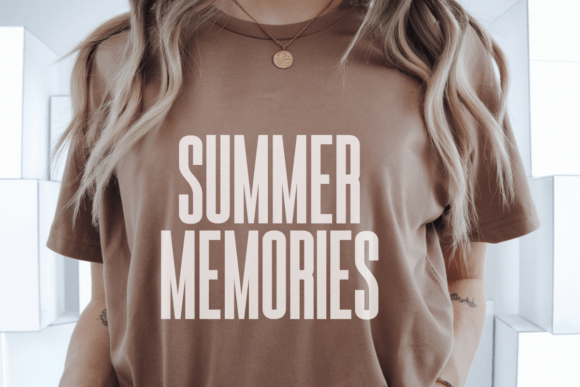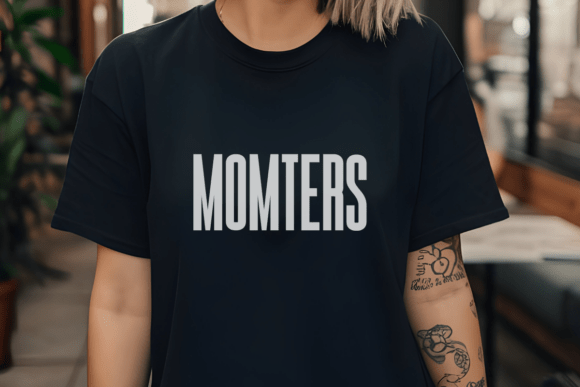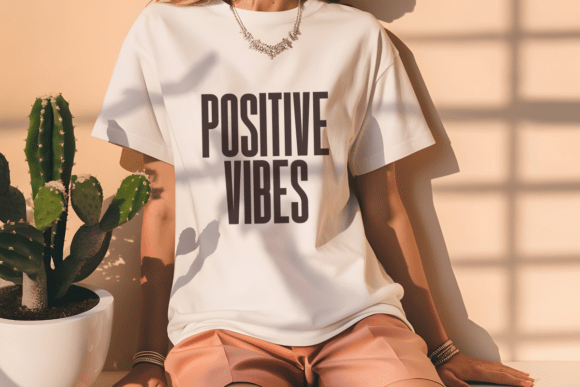
Introducing Achieve: The Bold and Professional Retro Condensed Sans Serif Font
Are you looking for a font that exudes confidence, professionalism, and a touch of nostalgia? Look no further than Achieve, a bold and professional retro condensed sans serif font. With its strong and solid structure, Achieve is the perfect choice for designers and crafters seeking to make a statement with their creative projects.
Key Features of Achieve Font
- Support for all English characters: Achieve offers comprehensive support for all characters of the English language, ensuring that you can use it for a wide range of projects without worrying about compatibility issues.
- Standard punctuation glyphs: The font includes standard punctuation glyphs, making it easy to use for various design applications.
- Bold and condensed style: Achieve’s narrow and assertive style makes it perfect for creating high-impact designs that demand attention.
- Retro vibe: The font’s retro condensed sans serif design gives it a unique and stylish look that’s sure to set your projects apart.
Perfect for Corporate Branding and Design Projects
Achieve is perfectly suited for corporate branding, motivational posters, and high-impact apparel design. Its bold and professional style makes it an excellent choice for:
- Logo design: Create a lasting impression with a bold and memorable logo that showcases your brand’s personality.
- Marketing materials: Use Achieve to create eye-catching brochures, flyers, and posters that grab attention and communicate your message effectively.
- Apparel design: Design stunning t-shirts, hoodies, and other apparel that makes a statement with Achieve’s bold and condensed style.
Great for Crafters and Graphic Artists
Tips for Using Achieve Font
To get the most out of Achieve, here are some tips for using the font:
- Experiment with sizes: Achieve’s bold style works well at various sizes, from large headings to smaller text.
- Pair with complementary fonts: Combine Achieve with other fonts to create visually appealing contrast and hierarchy in your designs.
- Play with colors: Achieve looks great in a range of colors, from bold and bright to subtle and muted.